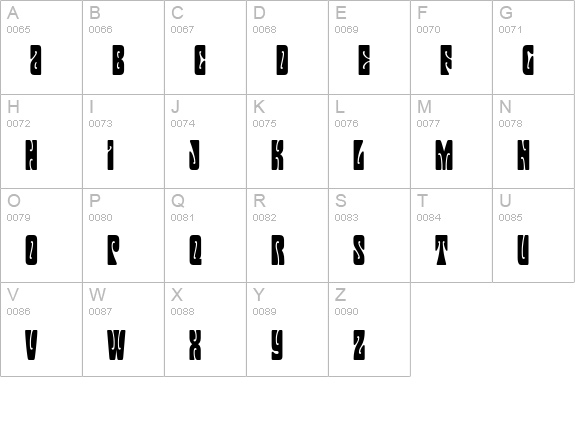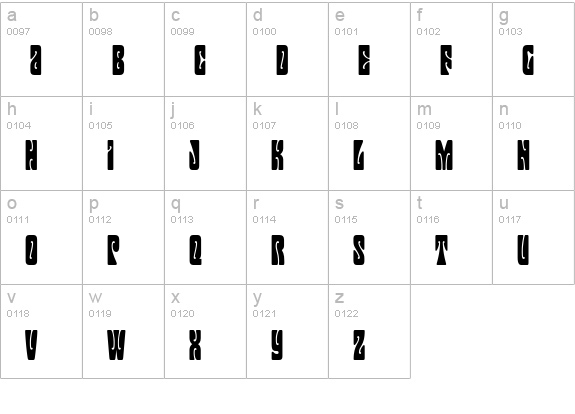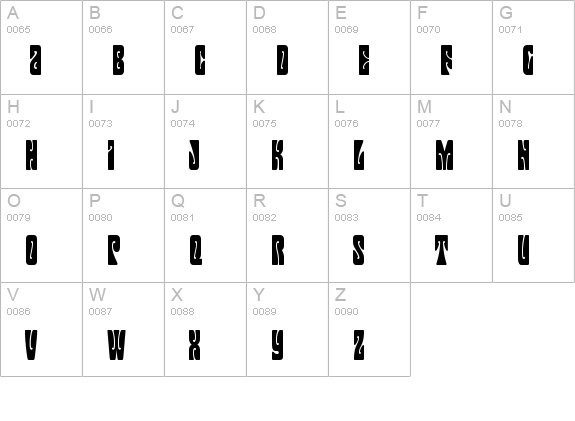
Mojo Font Details
Introducing Mojo font, a versatile and stylish typeface that exudes charisma and creativity. With its unique blend of modernity and elegance, Mojo font is the perfect choice for a wide range of design projects. Its sleek lines and contemporary feel make it ideal for branding, advertising, and editorial designs. What sets Mojo font apart is not just its striking appearance, but also the fact that it is completely free to download. Yes, you read that right - this beautiful font can be yours at no cost. Simply head over to FontsMarket.com and grab your copy today. Whether you're working on a logo, a website, or a print project, Mojo font will add a touch of sophistication and flair to your designs. Don't miss out on this fantastic opportunity to elevate your work with a high-quality, free font like Mojo. Download it now and see the magic it brings to your projects!